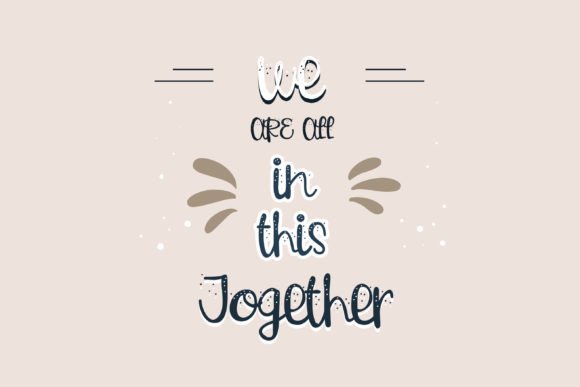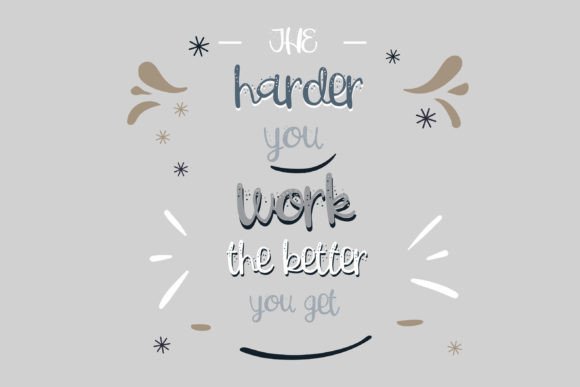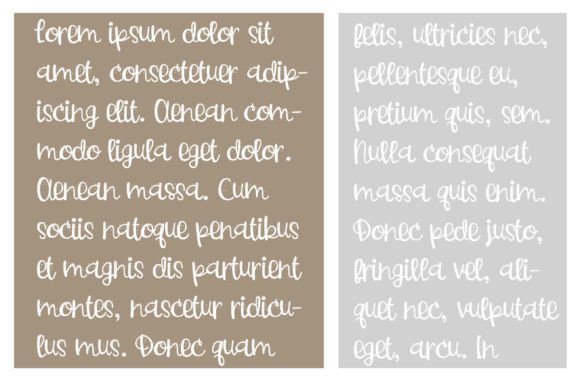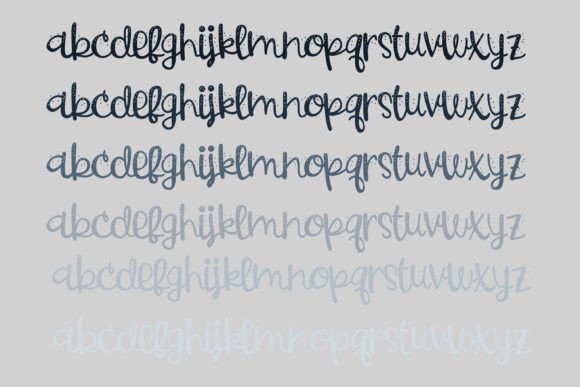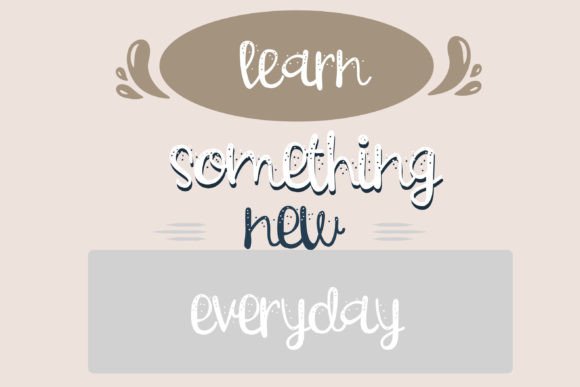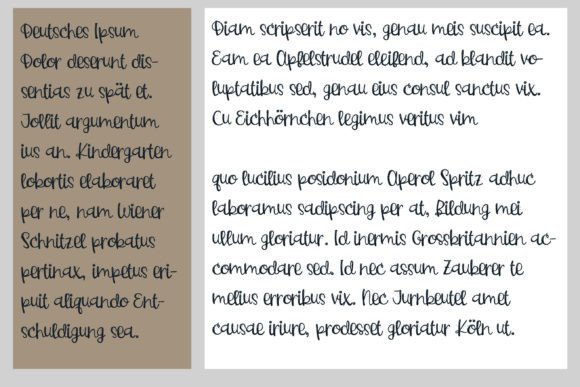
Introduction to Skiffle of Snow Font
Skiffle of Snow is a lovely and festive decorative script font that features snow throughout its characters.
Add it to your creative winter projects and you will be astounded by the generated outcome .
Why Choose Skiffle of Snow Font?